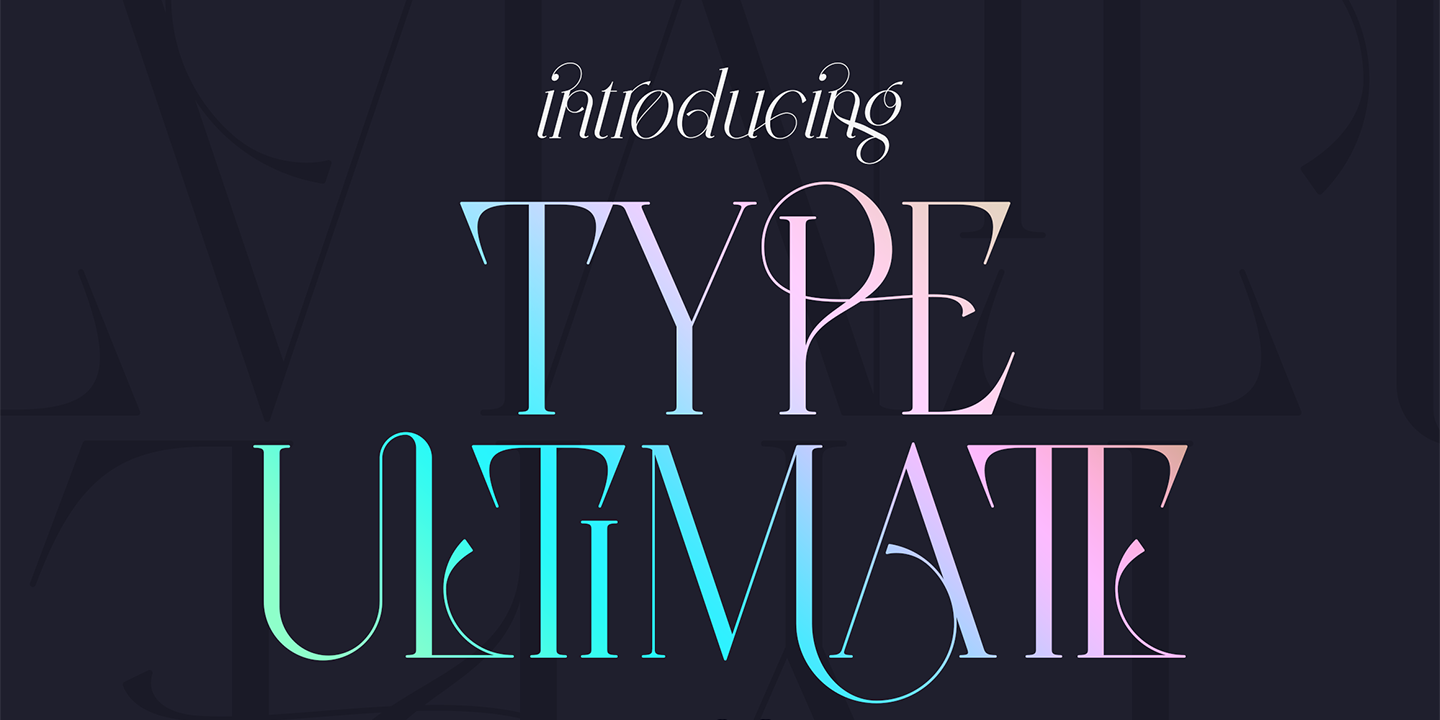
Type Ultimate Font is perfect for comprehensive branding systems, versatile corporate identity, multi-platform digital design, extensive editorial projects, complex publishing layouts, professional presentation materials, large-scale signage systems, adaptive web typography, comprehensive marketing campaigns, and complete brand ecosystem development. This comprehensive typeface works exceptionally well for design agencies, publishing houses, corporate enterprises, and ambitious projects that require maximum typographic flexibility and consistent visual excellence across all applications.
What makes Type Ultimate Font exciting is its unprecedented versatility and comprehensive design approach that addresses every possible typographic need. The expertly engineered letterforms feature optimal proportions, exceptional readability, and adaptable character that performs flawlessly across all media and applications. Each character has been meticulously crafted with universal appeal and functional excellence that ensures perfect performance from business cards to billboards. The font's ultimate flexibility makes it ideal for organizations that demand one typeface solution capable of handling every communication challenge with professional consistency and visual excellence.
The Type Ultimate Font family includes an extensive range of weights and styles featuring Ultra Thin, Thin, Light, Regular, Medium, Bold, Extra Bold, and Black with corresponding Italic, Condensed, Extended, and Display variations. Each style maintains the font's characteristic versatility while providing comprehensive options for any design challenge. The complete family ensures absolute typographic consistency across unlimited applications while offering designers unprecedented flexibility to create sophisticated layouts that work seamlessly across print, digital, and environmental media.
Professional designers and brand strategists will find Type Ultimate Font Free Download invaluable for projects requiring comprehensive typographic solutions. Whether you're developing complete brand ecosystems, complex publishing systems, or multi-platform digital experiences, this font delivers exceptional performance across every possible application. The optimized character shapes and extensive style options make it particularly effective for projects requiring ultimate flexibility and consistent brand expression.
The versatility of Type Ultimate Font extends across every conceivable design discipline. It works exceptionally well in corporate branding, editorial design, web typography, mobile interfaces, packaging systems, environmental graphics, and comprehensive marketing campaigns. The font's universal appeal makes it ideal for organizations requiring one typeface capable of handling all communication needs with professional excellence.
For designers seeking the ultimate typographic solution that eliminates font selection challenges, Type Ultimate Font represents the definitive choice. Its comprehensive appearance suits any brand while maintaining excellent performance across all media and applications. The font's consistent quality and extensive options create unlimited possibilities for sophisticated visual communication.